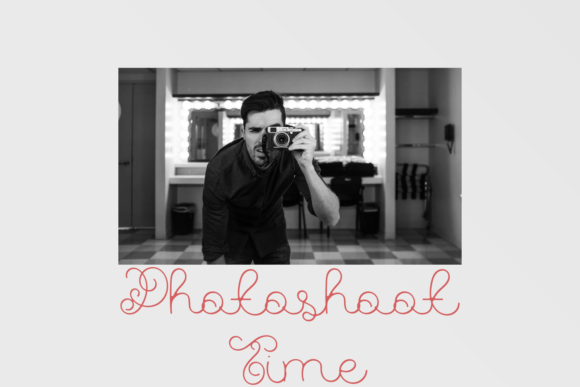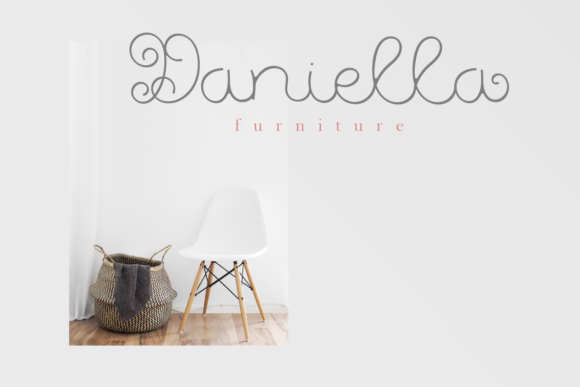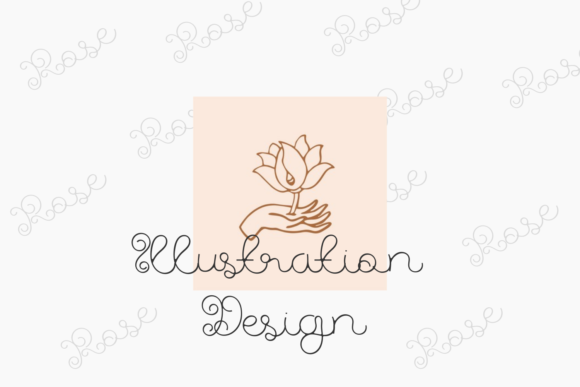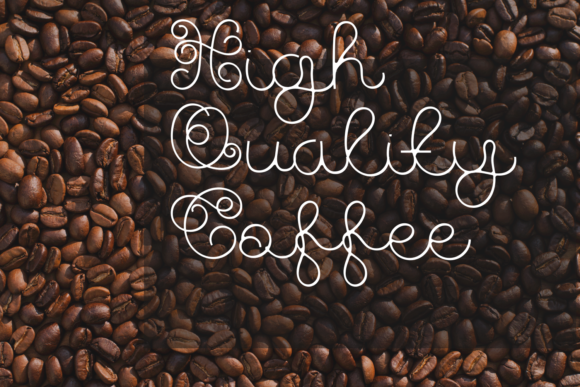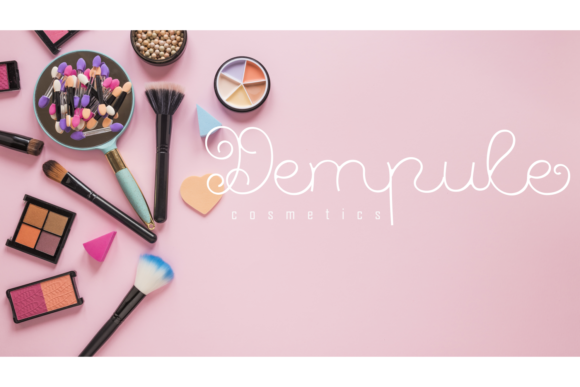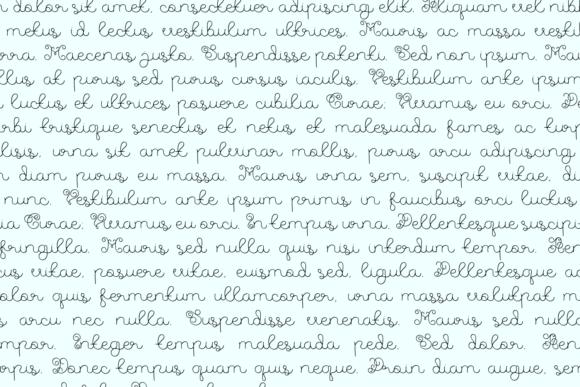
Have you ever been in the middle of a design project, staring at a blank page, searching for the perfect font to bring your vision to life? I’m sure you have. It’s that moment when everything clicks, and you finally find the perfect combination of style and elegance. For me, that moment came when I discovered the Betterfly Font.
This beautiful, thin-lettered script font is a game-changer for designers looking to add a personal touch to their projects. Whether it’s a wedding invitation, a thank you card, or a logo, Betterfly Font is the perfect choice. With its delicate style and PUA encoding, you’ll have access to all the glyphs and swashes you need to create stunning designs. As a designer, you know how valuable it is to have a versatile font that can adapt to any project. That’s where the Betterfly Font comes in – a must-have for any designer’s toolkit.
Betterfly Font Key Features
- Font Family: Betterfly comes in a range of 4 font styles (Regular, Italic, Bold, Bold Italic)
- Character Count: The font contains 330 glyphs, ensuring comprehensive coverage of characters and symbols
- Unique Characteristics: Betterfly Font features a unique blend of modern and organic elements, creating a distinctive and eye-catching aesthetic
Designer Review: Betterfly Font
Overall, I’m quite impressed with the Betterfly Font. Here are some aspects that stand out to me: ✨
- Unique design aesthetic: The font has a distinctive, whimsical feel that sets it apart from more common fonts.
- High legibility: Even at smaller sizes, the text remains clear and easy to read.
- Limited font styles: The font comes in a single weight, which might limit its versatility for certain design projects.
- Lack of language support: The font seems to be optimized for Latin-based languages, but I couldn’t find any information on language support for other scripts.
Overall, I think the Betterfly Font is a great addition to any designer’s toolkit, but it’s essential to weigh its limitations before committing to it for your next project.
Some common use cases for the Betterfly Font include:
- Menu design and restaurant branding
- Event flyers and posters
When using the Betterfly Font, keep in mind that it’s a playful and whimsical font, so it’s best suited for creative and fun projects.